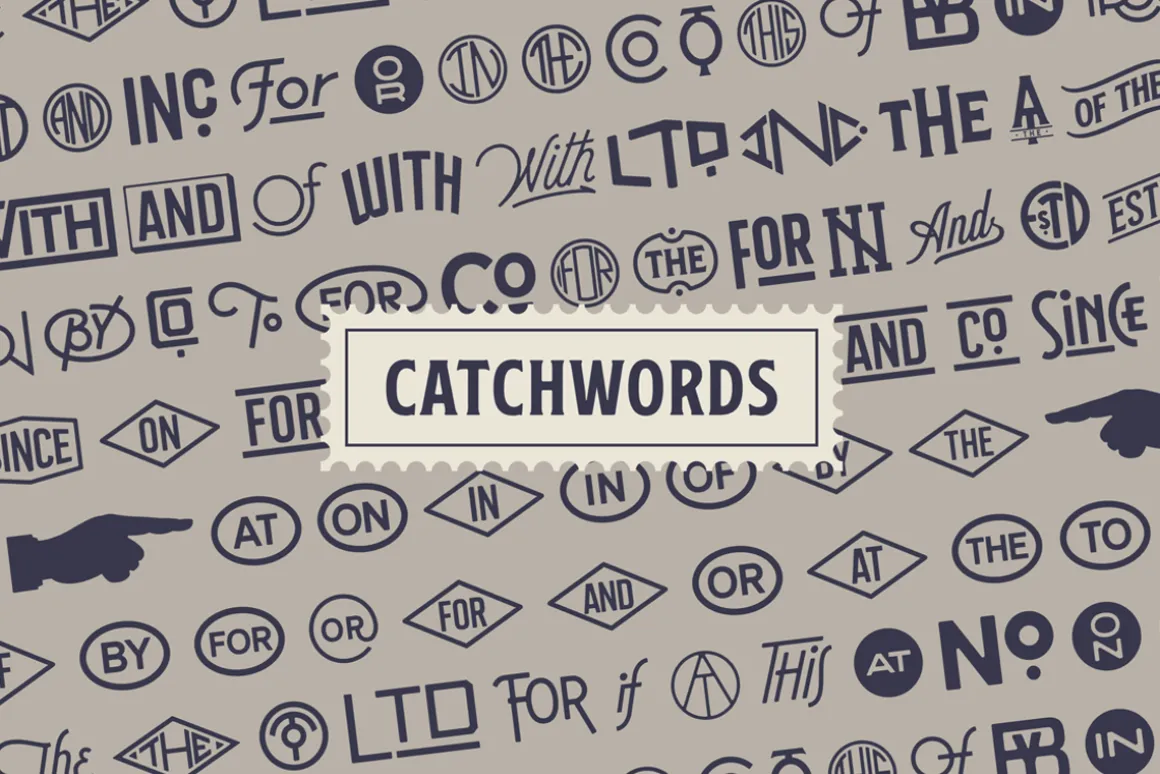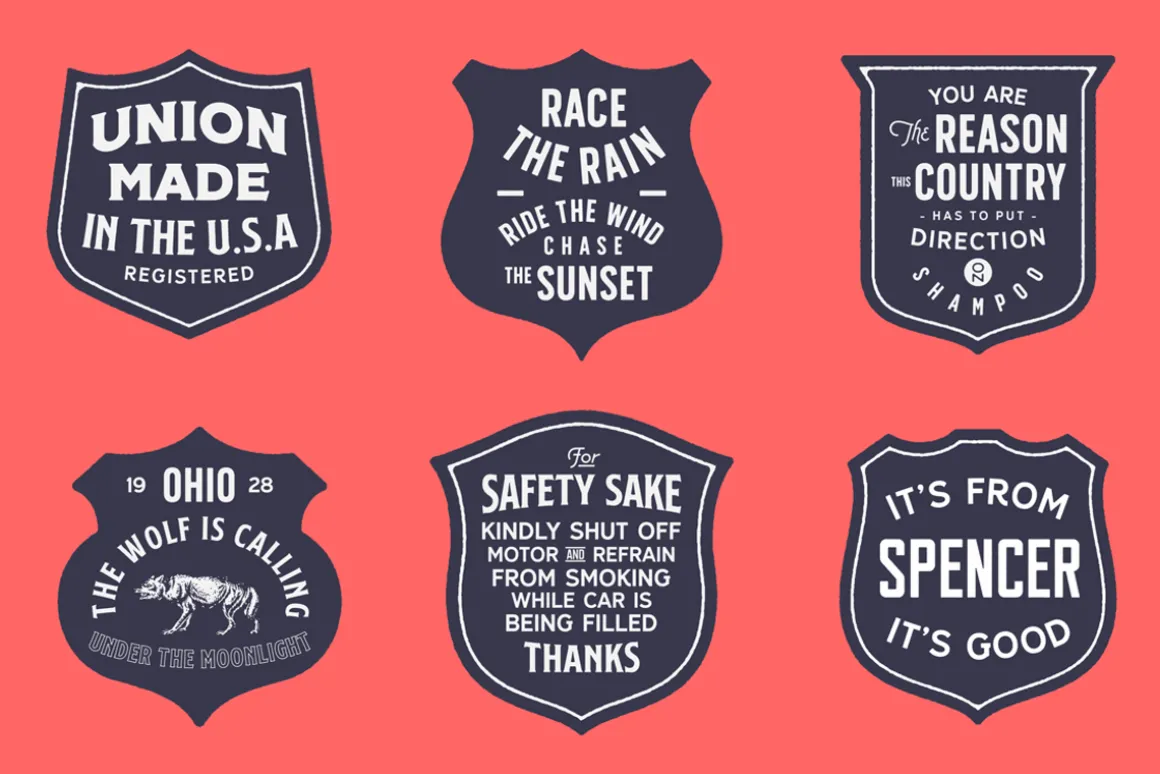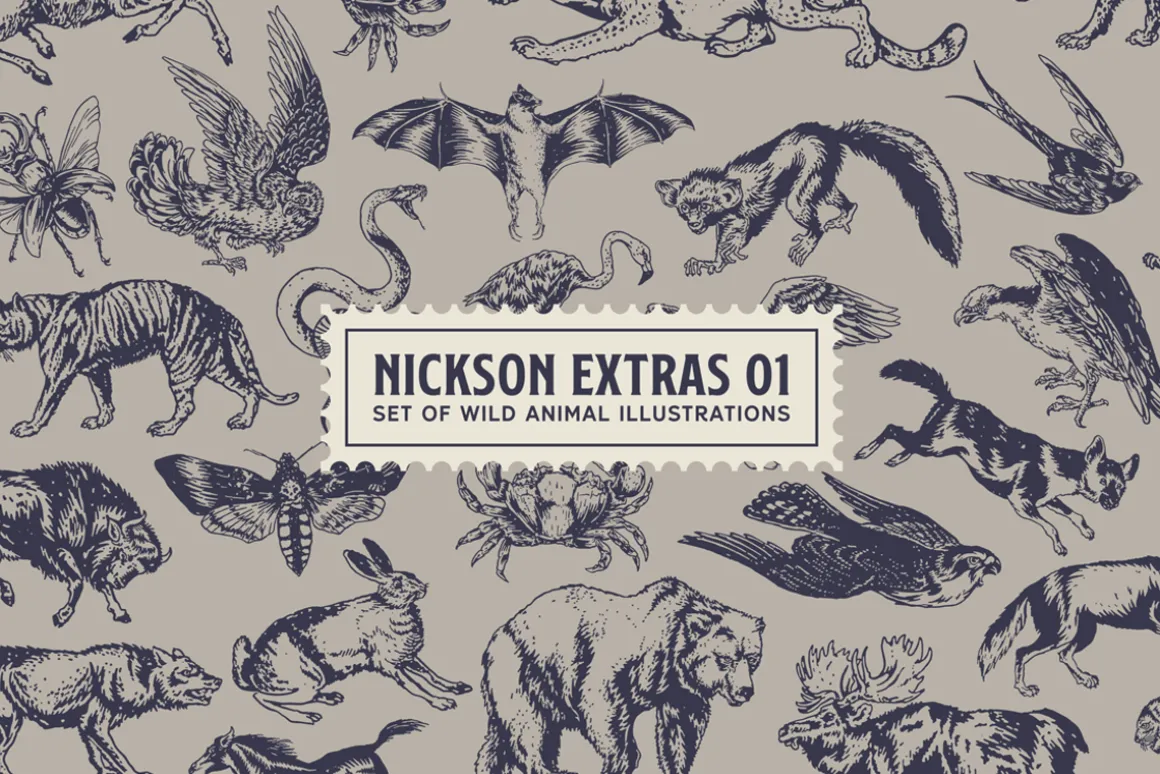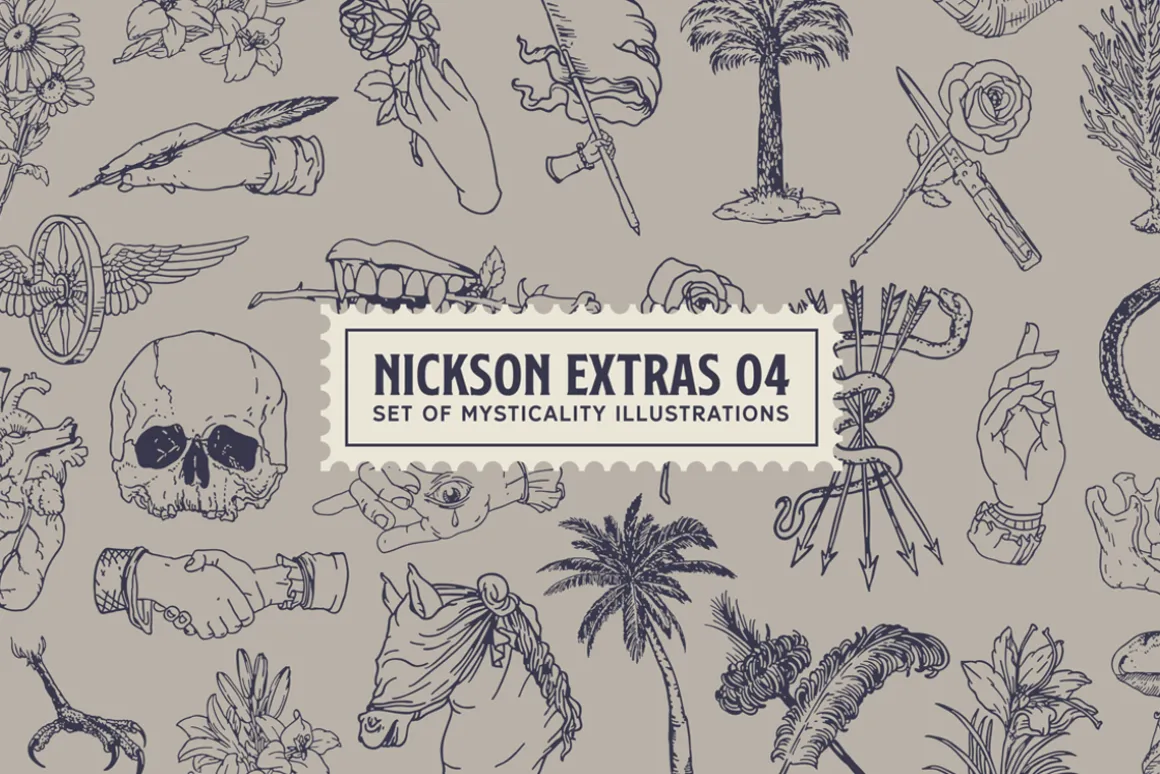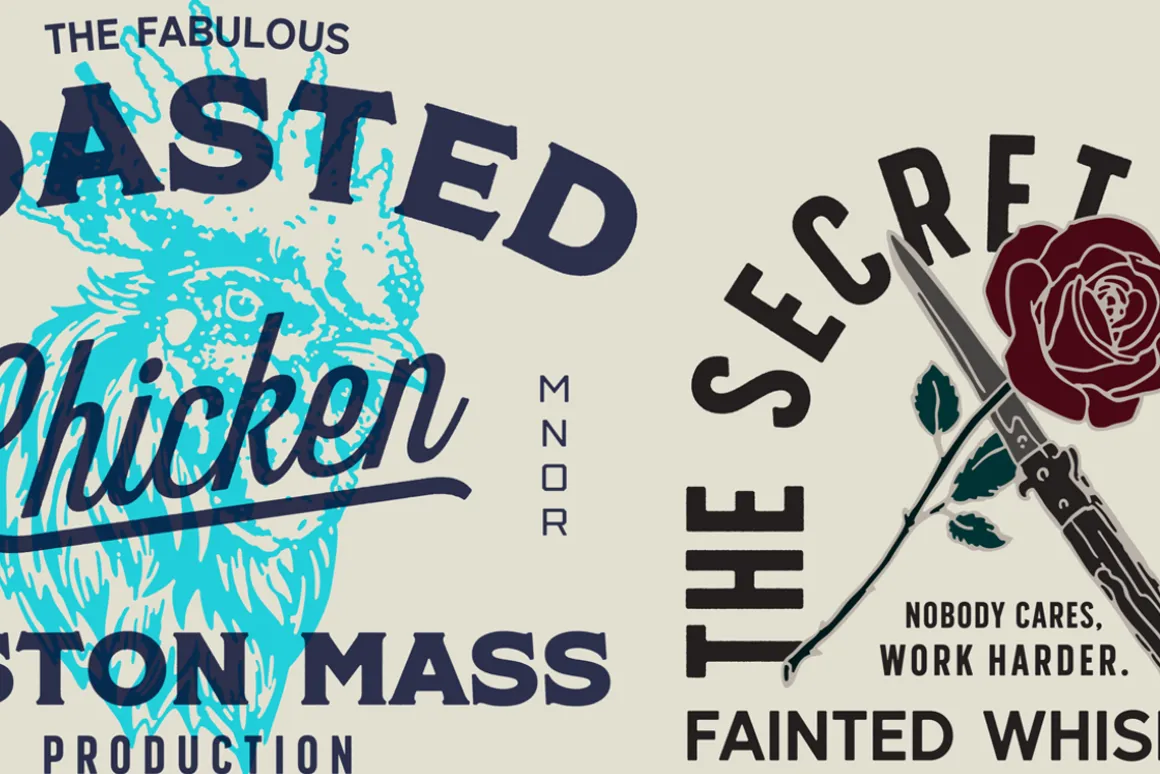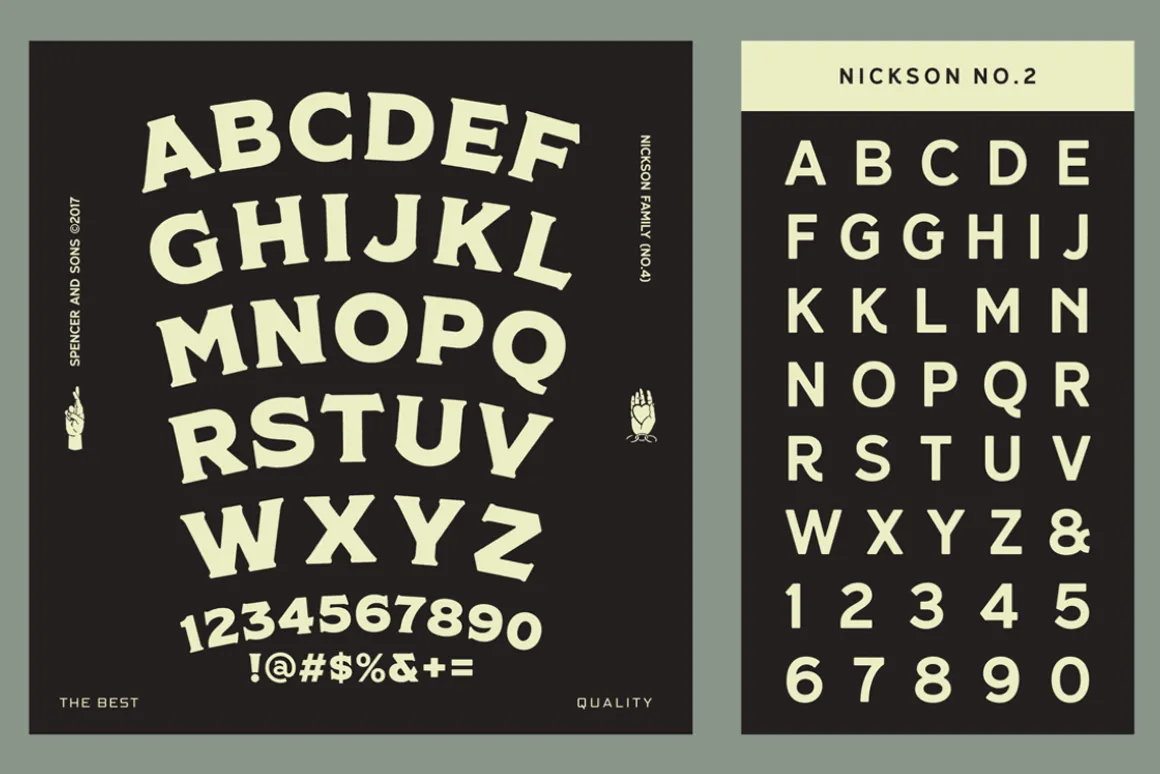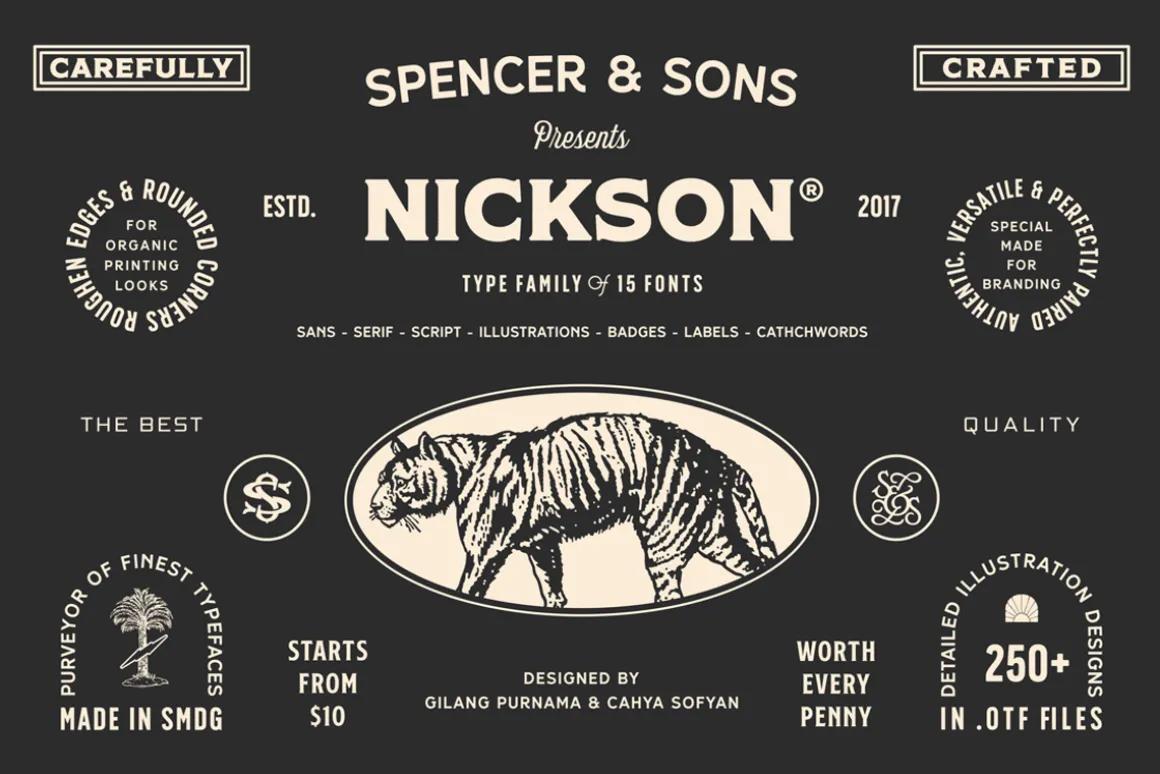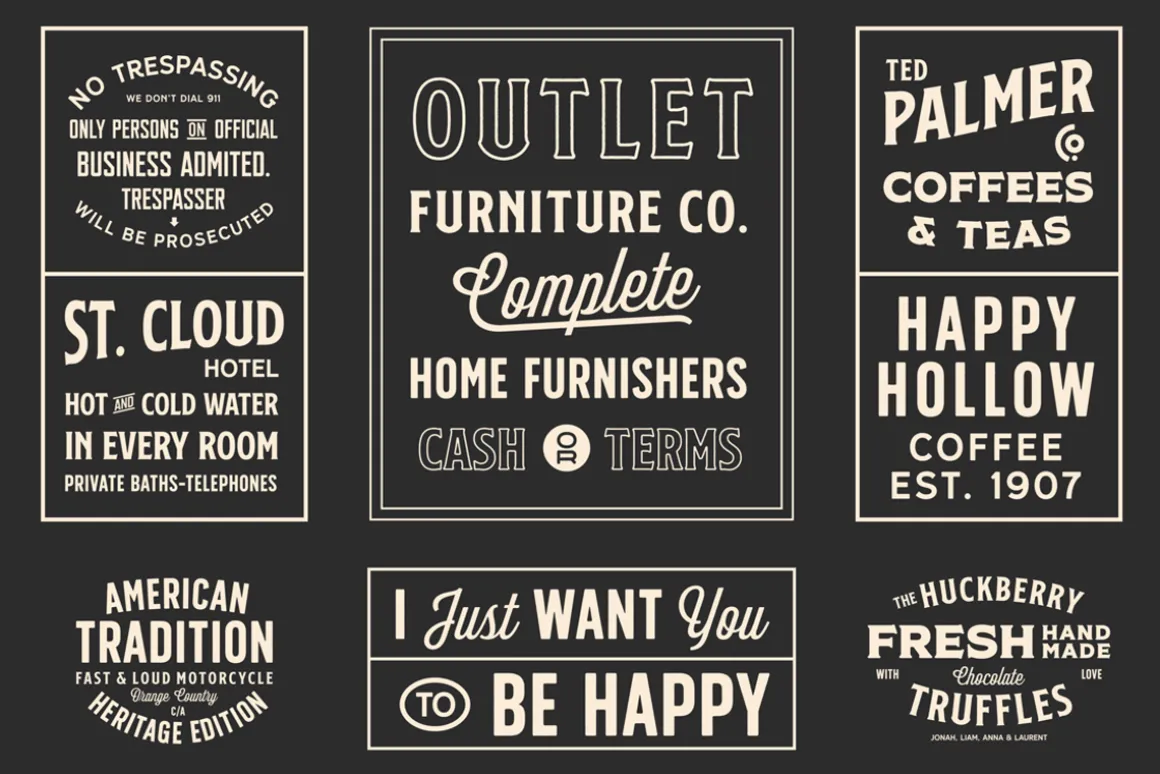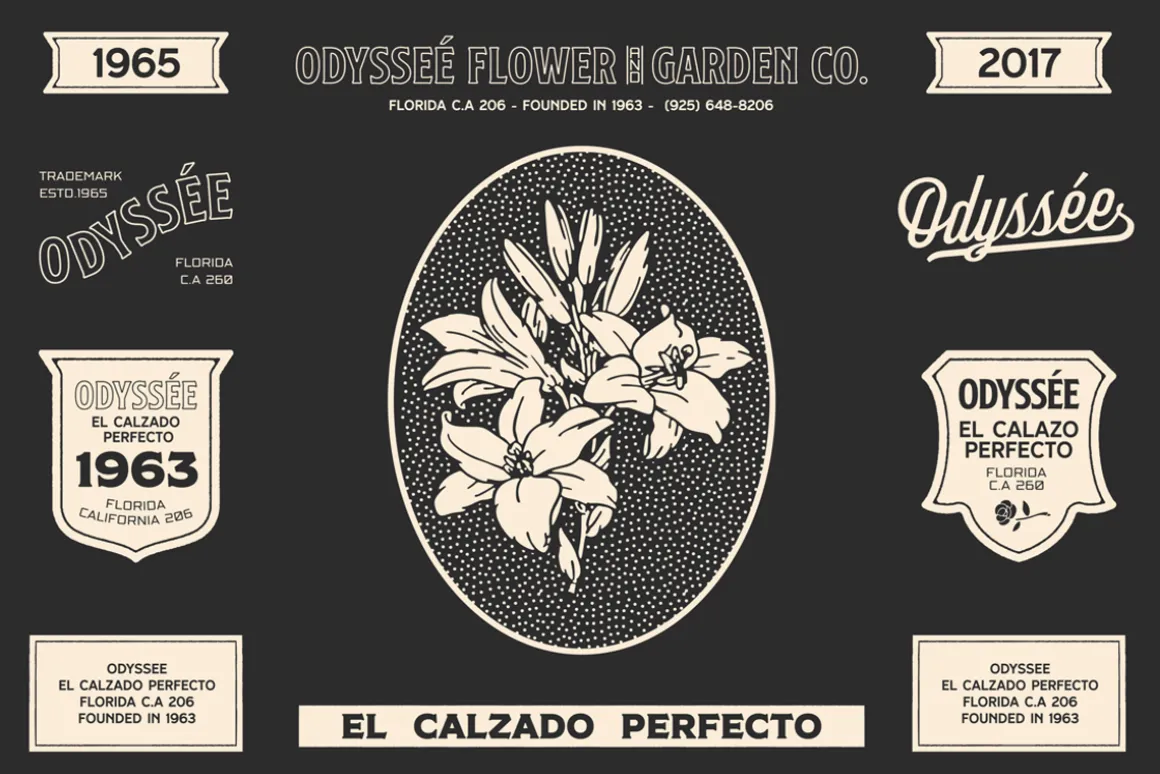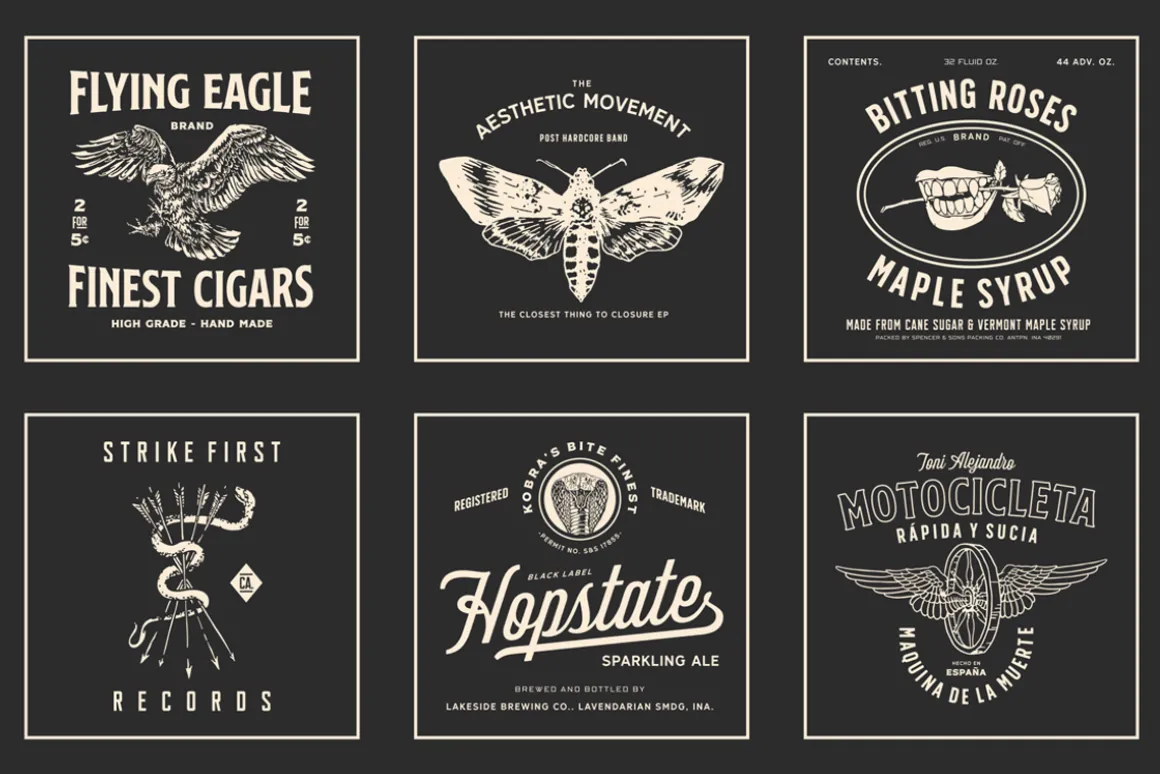
S&S Nickson Font Family
Nickson Font Family includes 15 fonts that have different styles from each other but at the same time perfectly paired when used together.Nickson offers seven display fonts, one script font, 250+ illustrations (using new techniques so you will not lose every detail), badges, labels, and catchwords.Nickson Font Family Collection was designed carefully to create elegant typographic works. It would be a perfect choice to design posters, affiches, logos, t-shirt and magazine prints, eye-pleasing typographic designs and more.( this is roughen version )
Uppercase & Lowercase
Numerals & Punctuation
*all the designs contained in the poster using nickson font family
Suggestion : This font is a terrific toolbox for display purposes